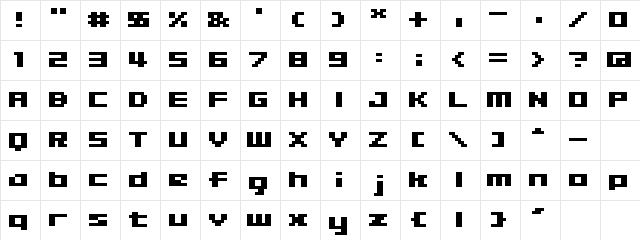
04b_09 Regular Free Font
04b_09 Regular
04b_09 Family
Complete 04b_09 Regular glyph index. Displaying only characters natively supported by 04b_09 Regular font.
Design Context for 04b_09
04b_09 is a composed and adaptable typeface that performs quietly and consistently across a wide range of design contexts.
Pro Tip: Use 04b_09 in both headline and body roles to test its range before committing to a single application.